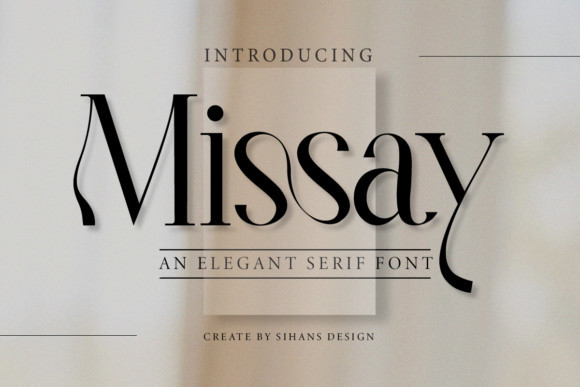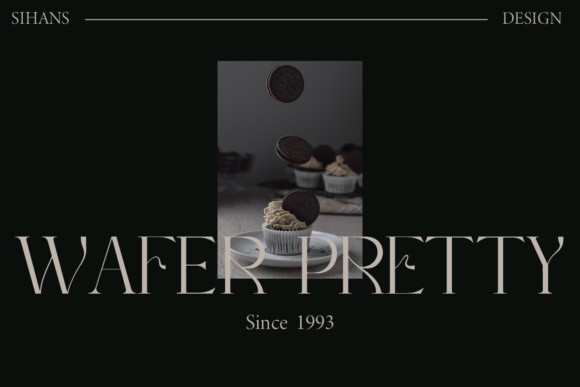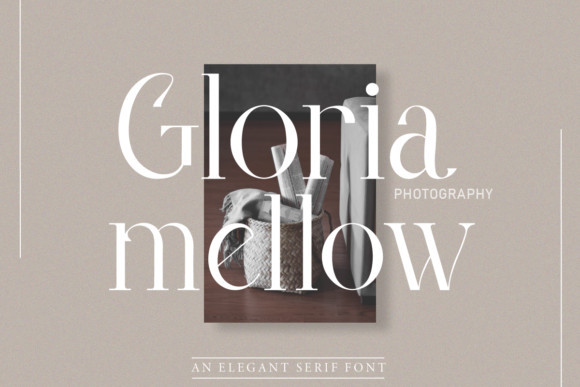
Missay Font
Missay FontMissay is an elegant and classic serif font. Simple and easy to use, this font will be very beautiful if you mix it with your various craft designs.